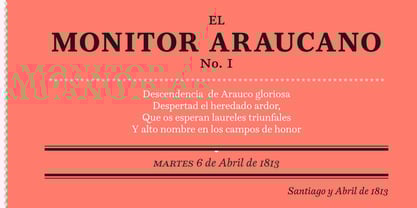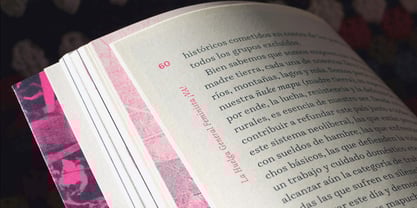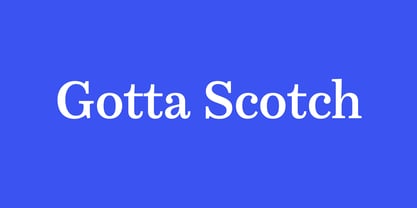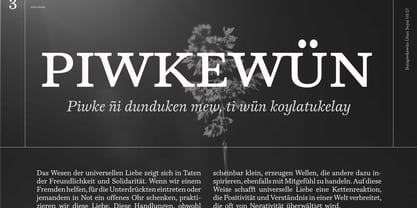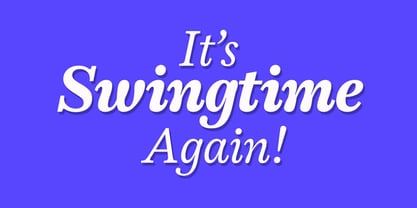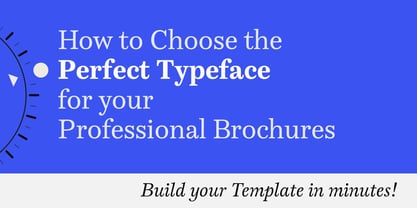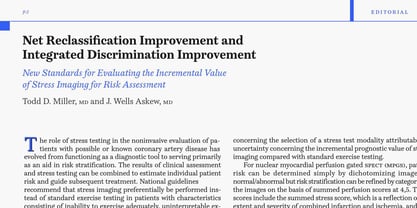
Gotta Scotch
by Type-Ø-Tones
Gotta Scotch was designed and produced by Marcela Aguilera in collaboration with Pedro González. It achieved its typographic consolidation thanks to the meticulous work carried out by Josema Urós.
It emerged from Marcela’s final project for the Master in Typographic Design at the Eina School of Barcelona, ​​which deals with the first typefaces used in Chile.
It is an interpretation inspired by the Scotch Romans formula to which contemporary and transitional influences are incorporated, resulting in a work of great visual interest and, at the same time, offering great comfort in its reading. Ideal combination for use in editorial design.
Among its practical attractions, the formal contrast of the calligraphic accent of its Italics stands out. It also has a set of Small Caps, old-style arrangements, aligned, tabular and fractional, among other multiple stylistic options.